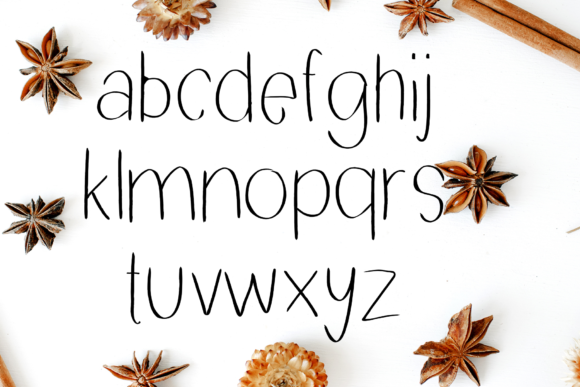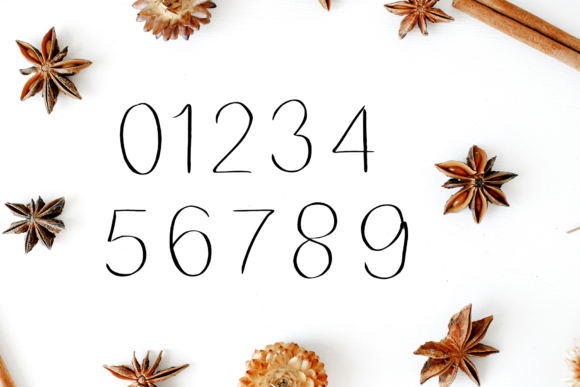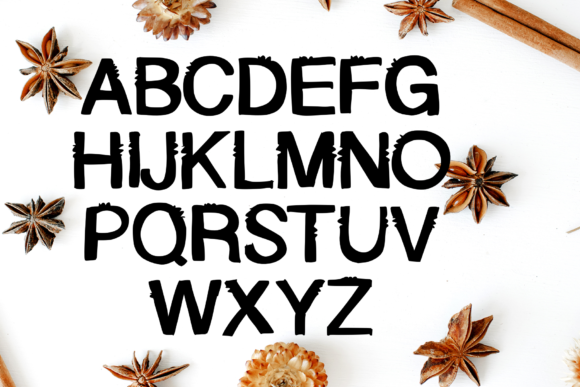
Phoenix Font
About Phoenix Font
Phoenix is a charming and simple handwritten font with a delightful round lettered style. Its smooth and flowing lines exude a sense of grace and elegance, making it a perfect choice for a wide range of design projects. As you embrace Phoenix and explore its sweet and captivating style, you’ll find it to be a versatile companion that enhances your creative ideas and brings them to life in a spectacular way.
This font’s simplicity and rounded letterforms make it an excellent choice for various design applications. Whether you’re creating lovely wedding invitations, heartwarming thank-you cards, inspiring quotes, captivating logos, or eye-catching social media graphics, Phoenix effortlessly infuses your designs with a touch of charm and sophistication.
The gentle curves and smooth strokes of Phoenix give your text a sense of harmony and balance, making it visually pleasing and easy on the eyes. Its legibility ensures that your message is conveyed clearly and effectively, allowing your audience to connect with your content effortlessly.
Fall in love with Phoenix’s sweet style, which evokes a feeling of warmth and friendliness. This makes it a wonderful option for crafting personalized notes, heartwarming messages, and charming stationery that leave a lasting impression on the recipients.
With its versatility and adaptability, Phoenix seamlessly transitions between formal and informal design settings. It can add a touch of elegance to formal invitations or a playful flair to casual designs, giving you the freedom to explore various creative avenues.
Embracing Phoenix in your projects is a delightful experience, as it allows you to experiment with different lettering techniques and customize your designs to suit your creative vision. Its simplicity lends itself well to creative play and offers endless possibilities for artistic expression.
As you use Phoenix to create your designs, you’ll find that it complements a wide range of color palettes and design elements, making it easy to integrate into your existing projects or start entirely new ones with a fresh perspective.
In conclusion, Phoenix is a simple and round lettered handwritten font that exudes charm and elegance. Its sweet style makes it a versatile choice for an array of design projects, adding a touch of sophistication and warmth. Whether you’re creating formal invitations or casual social media graphics, Phoenix will surely captivate your audience and elevate your designs to a spectacular level. Let this font be the delightful partner in your creative journey, as it brings joy and grace to all your design endeavors.